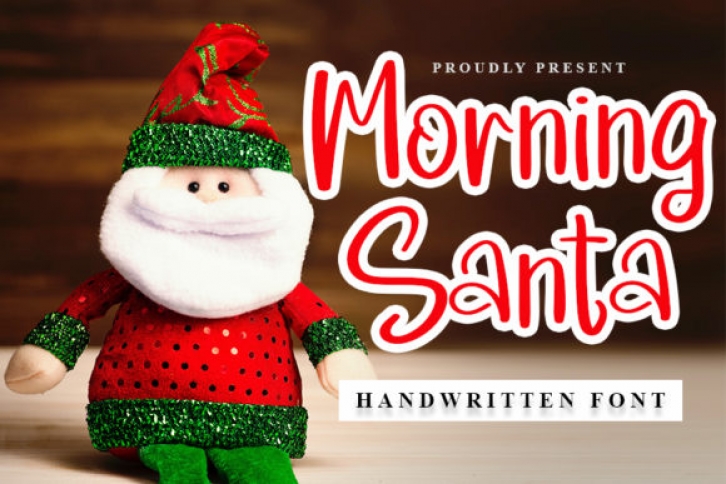
Morning Santa is a casual and relaxed handwritten font. Its distinct and well rounded letters make this font a masterpiece. Fall in love with its incredibly versatile style and use it to create spectacular designs!